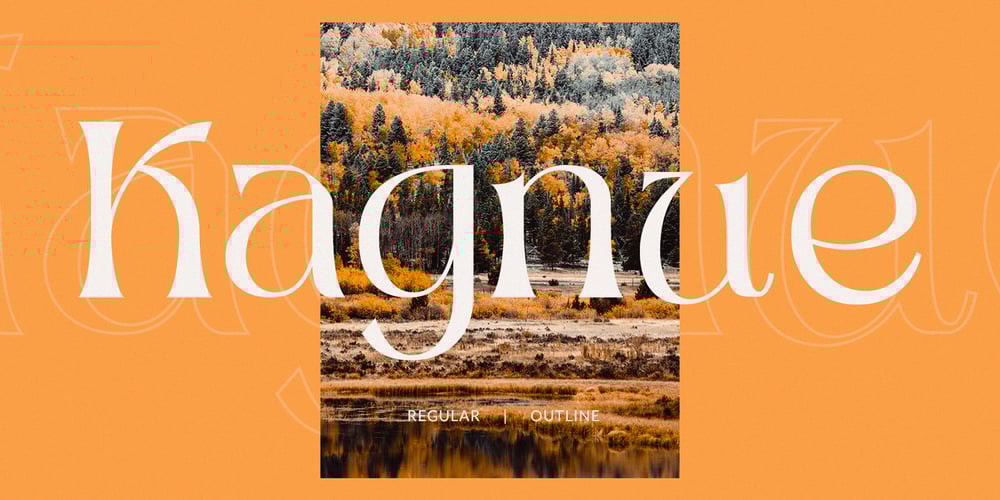
Kagnue Font Family was designed by Fathi Al Ghazi and published by Youthlabs. Kagnue contains 2 styles and family package options. Introducing Kagnue Serif Font – A Brand New Serif Font with Classy and Modern style, Kagnue Serif font made with combination from classic italic font and modern shape. Kagnue Serif font come with More Opentype Feature, more neat curves.WHAT’S YOU GET ? Unique Letterforms Works on PC & Mac Simple Installations Accessible in the Adobe Illustrator, Adobe Photoshop, Microsoft Word even work on Canva! Fully accessible without additional design software. I really hope you’ll get pleasure using Kagnue font and it will be perfect addition to your font collection! Contact me with an inbox message If you have any question. Thank you! Happy Creating.